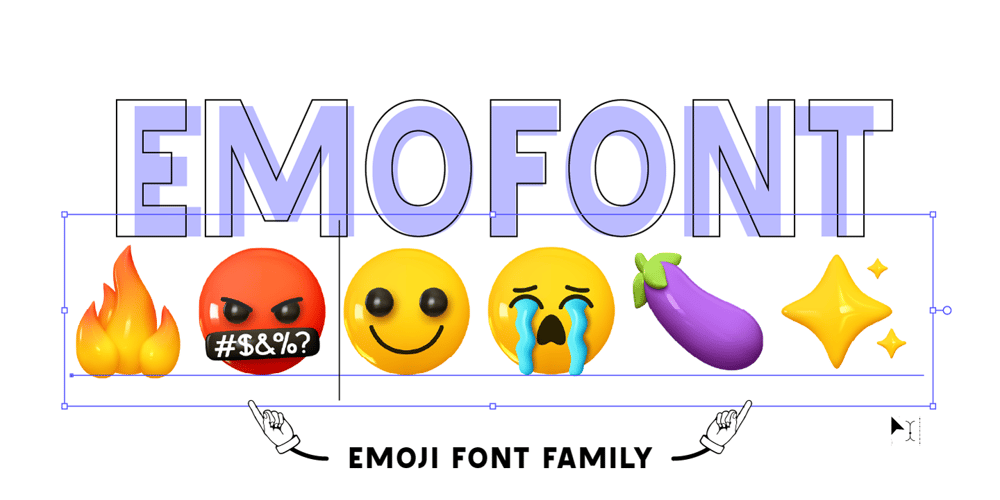
Emofont Font Family was designed by Lauritta Ivanova and published by Luxfont. Emofont contains 4 styles and family package options. Cool author’s symbolic font consisting of many colored emotions – Emofont. Need to quickly add emotion to your design? This font family is made for that! Original and unique emotions that can be easily typed when creating a design, as if in a correspondence in the messenger – this is very convenient)Features:- 195 emoji in 3 fonts- Easy typing like any text- High quality- Unique & original author’s graphicsIMPORTANT:- Check the glyphs in the font before buying!- SVG fonts contain raster letters.- Check it www.colorfonts.wtf- Try a FREE DEMO version before buying.ld.luxfont@gmail.com